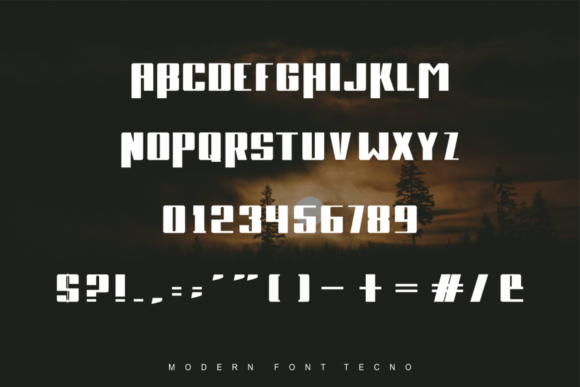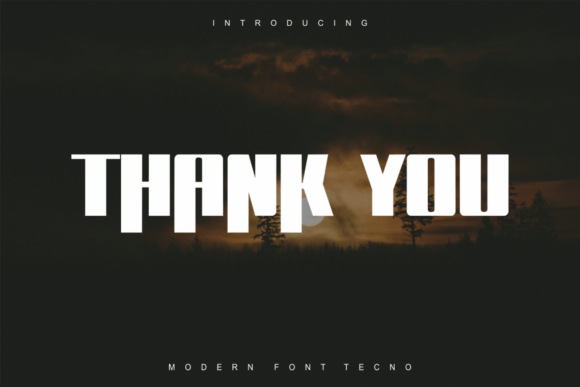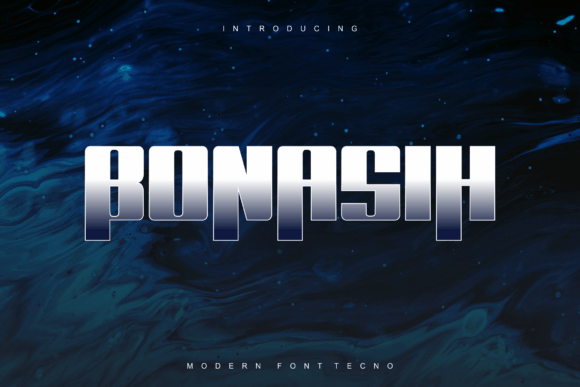
Introducing Bonasih Font: The Modern and Bold Display Font You Need
Are you tired of using the same old fonts in your creative projects? Look no further than Bonasih Font, a modern and bold display font that’s sure to take your designs to the next level. With its unique and eye-catching style, Bonasih Font is the perfect addition to any project that requires a touch of sophistication and elegance.
What is Bonasih Font?
Bonasih Font is a modern sans-serif font that’s specifically designed to make a statement. Its bold and clean lines make it perfect for use in headlines, titles, and other display text. The font is highly legible, even at large sizes, making it ideal for use in a variety of applications, from posters and flyers to websites and social media graphics.
Key Features of Bonasih Font
• Modern and Bold Design: Bonasih Font features a modern and bold design that’s sure to grab attention.
• Highly Legible: The font is highly legible, even at large sizes, making it perfect for use in a variety of applications.
• Clean Lines: The font features clean lines and a simple design that’s easy to read and understand.
• Versatile: Bonasih Font is highly versatile and can be used in a variety of applications, from posters and flyers to websites and social media graphics.
Why Use Bonasih Font?
There are many reasons why you should consider using Bonasih Font in your creative projects. Here are just a few:
• Add a Touch of Sophistication: Bonasih Font adds a touch of sophistication and elegance to any project.
• Stand Out from the Crowd: The font’s unique and eye-catching style is sure to make your project stand out from the crowd.
• Easy to Read: The font is highly legible, making it easy for your audience to read and understand your message.
• Save Time: With Bonasih Font, you can create professional-looking designs in no time.
How to Use Bonasih Font
Using Bonasih Font is easy. Here are a few tips to get you started:
• Use it as a Display Font: Bonasih Font is perfect for use as a display font in headlines and titles.
• Pair it with Other Fonts: The font pairs well with other fonts, making it easy to create a unique and cohesive look.
• Experiment with Different Sizes: Don’t be afraid to experiment with different sizes to find the one that works best for your project.
Font Name Bonasih Font
In conclusion, Bonasih Font is a modern and bold display font that’s perfect for any creative project. With its unique and eye-catching style, highly legible design, and versatility, it’s the perfect addition to any project that requires a touch of sophistication and elegance. So why wait? Add Bonasih Font to your project today and see the difference it can make.
• What is Bonasih Font?: Bonasih Font is a modern and bold display font.